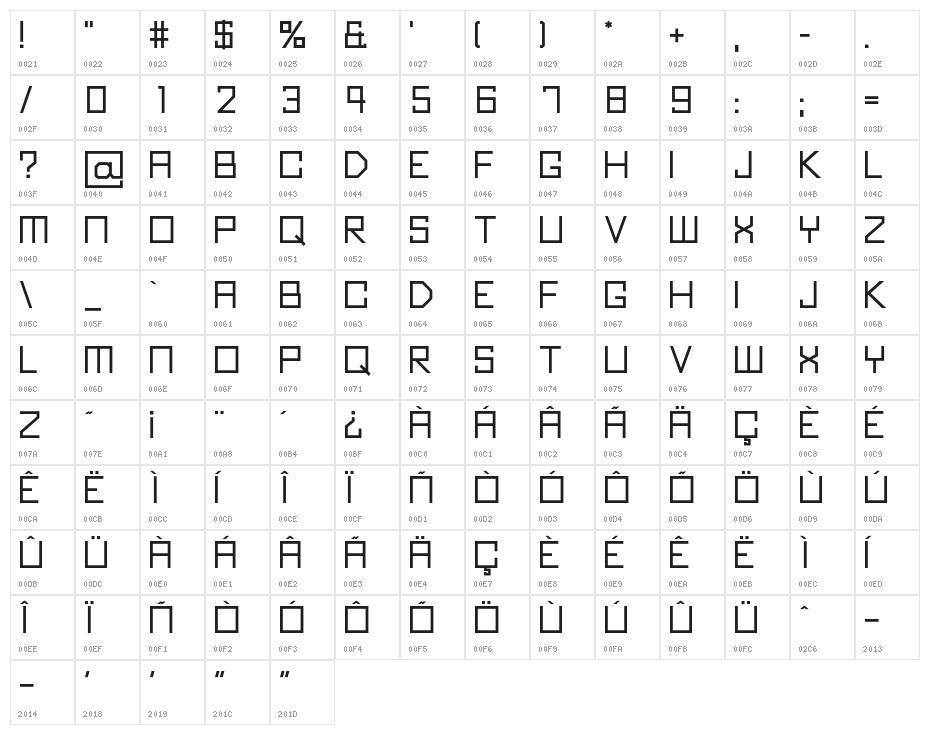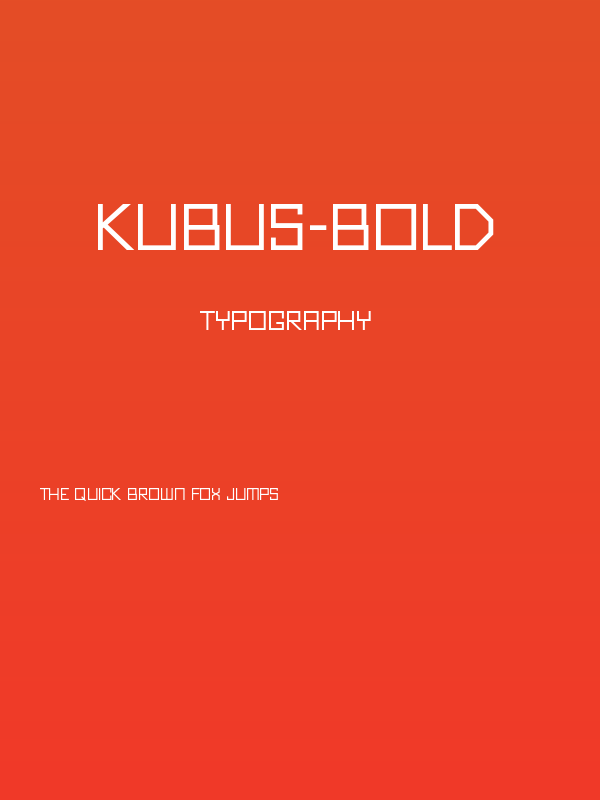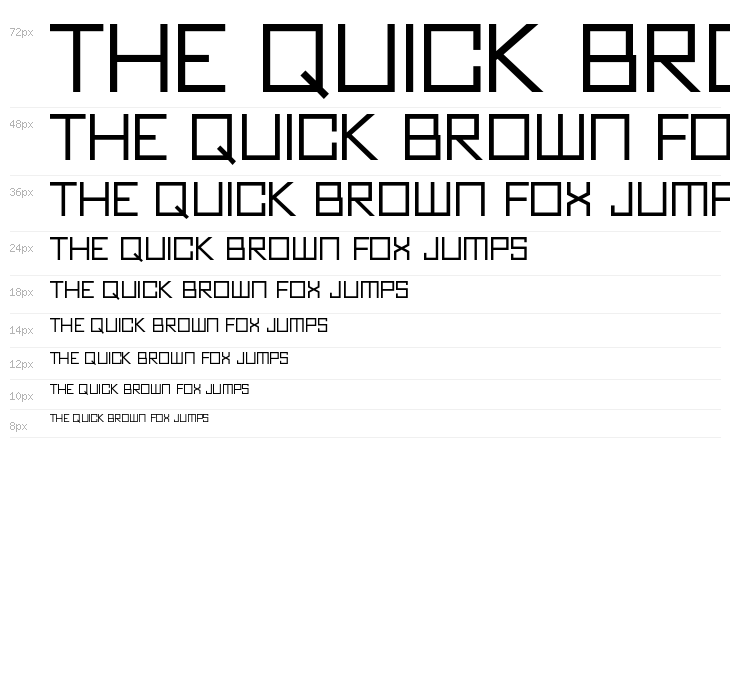
Kubus-Bold Font
Kubus-Bold Description
This font features a geometric and modern design with a strong emphasis on straight lines and sharp angles. The characters are constructed with a consistent thickness, creating a uniform and bold appearance. The uppercase letters are particularly striking, with a blocky, almost architectural feel. The numerals and special characters maintain this geometric style, ensuring a cohesive look across all glyphs. The font's structure is clean and minimalistic, making it suitable for contemporary design projects that require a bold statement.
| Proposed Projects | Ideal for branding, posters, headlines, and any design that requires a modern, bold aesthetic. |